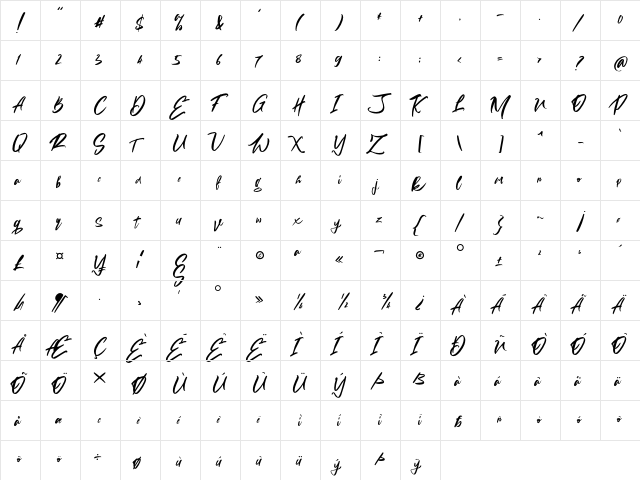
Aliva Brush Script Regular
Design Context for Aliva Brush Script Typeface
Aliva Brush Script brings a calligraphic fluidity to the page — its connecting strokes and expressive curves give it an unmistakably human quality.
Font Pairing: Combine Aliva Brush Script with a simple geometric sans for maximum contrast — the tension between flowing curves and clean structure is a classic typographic pairing.
Pro Tip: Pair Aliva Brush Script with a clean sans-serif for supporting text. The contrast between fluid script and geometric structure creates an elegant typographic hierarchy.